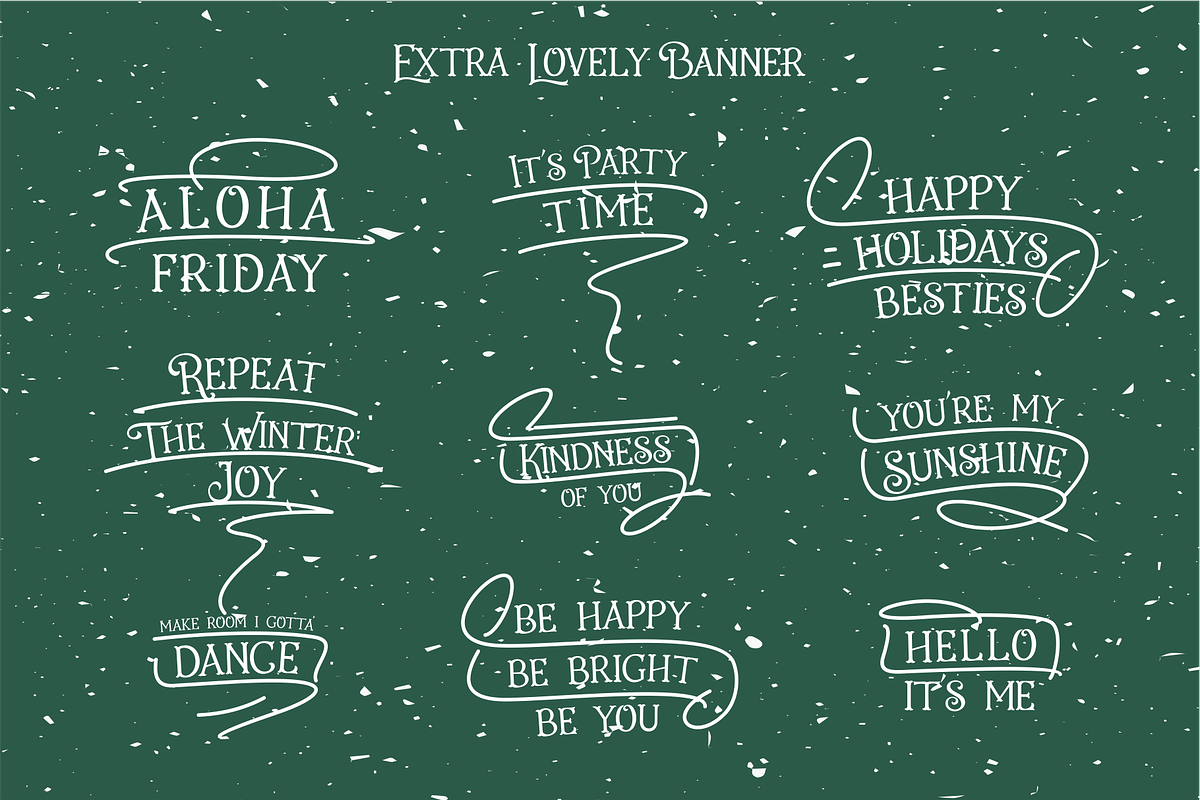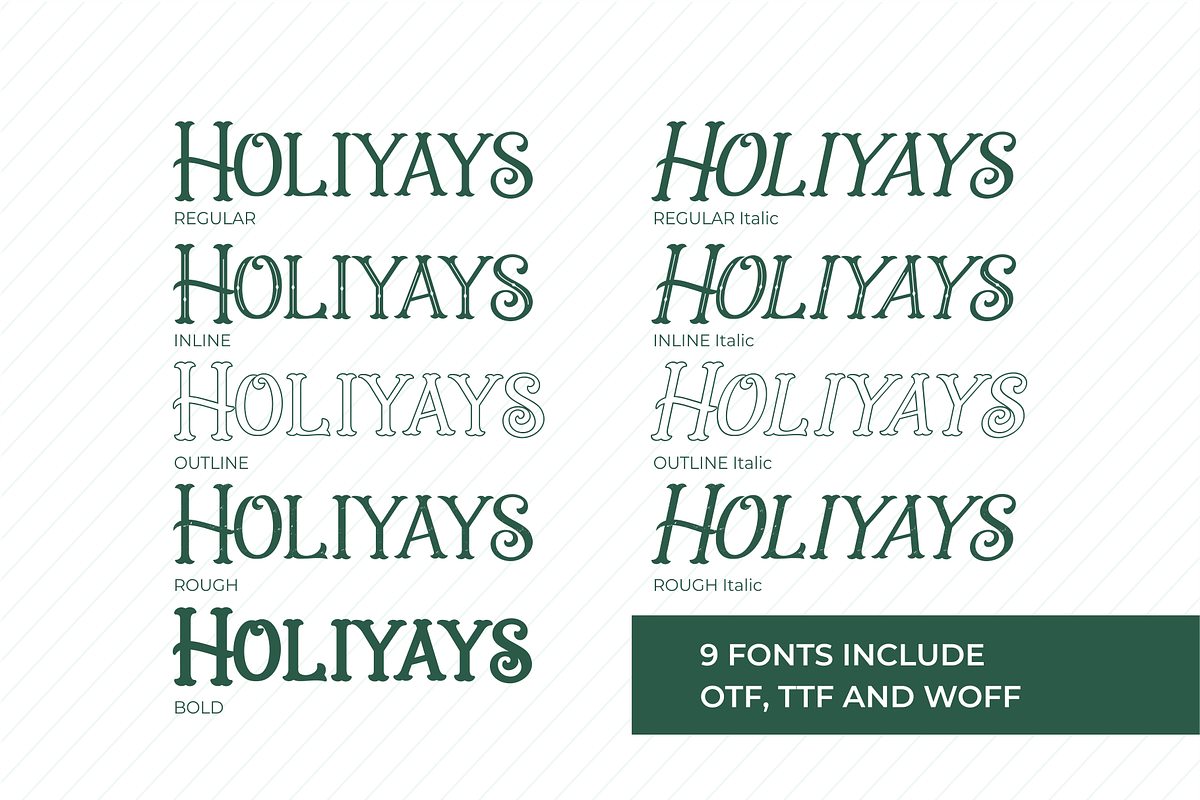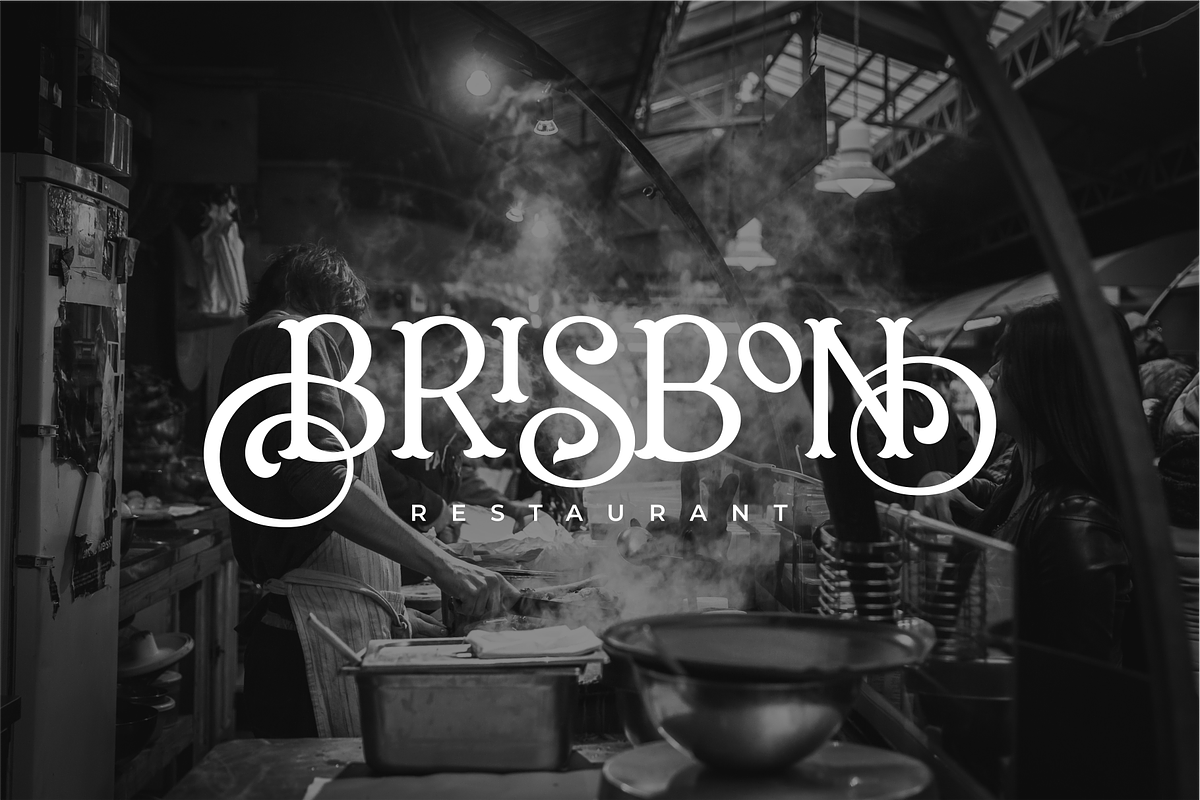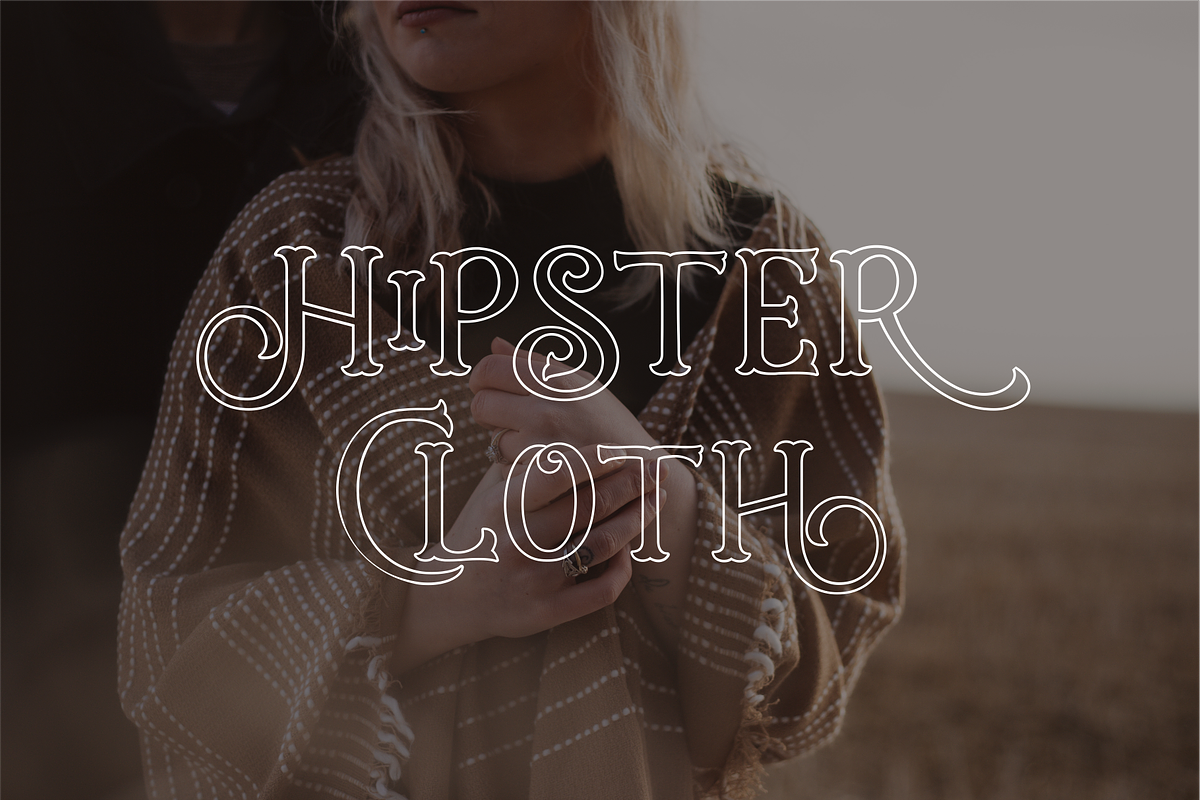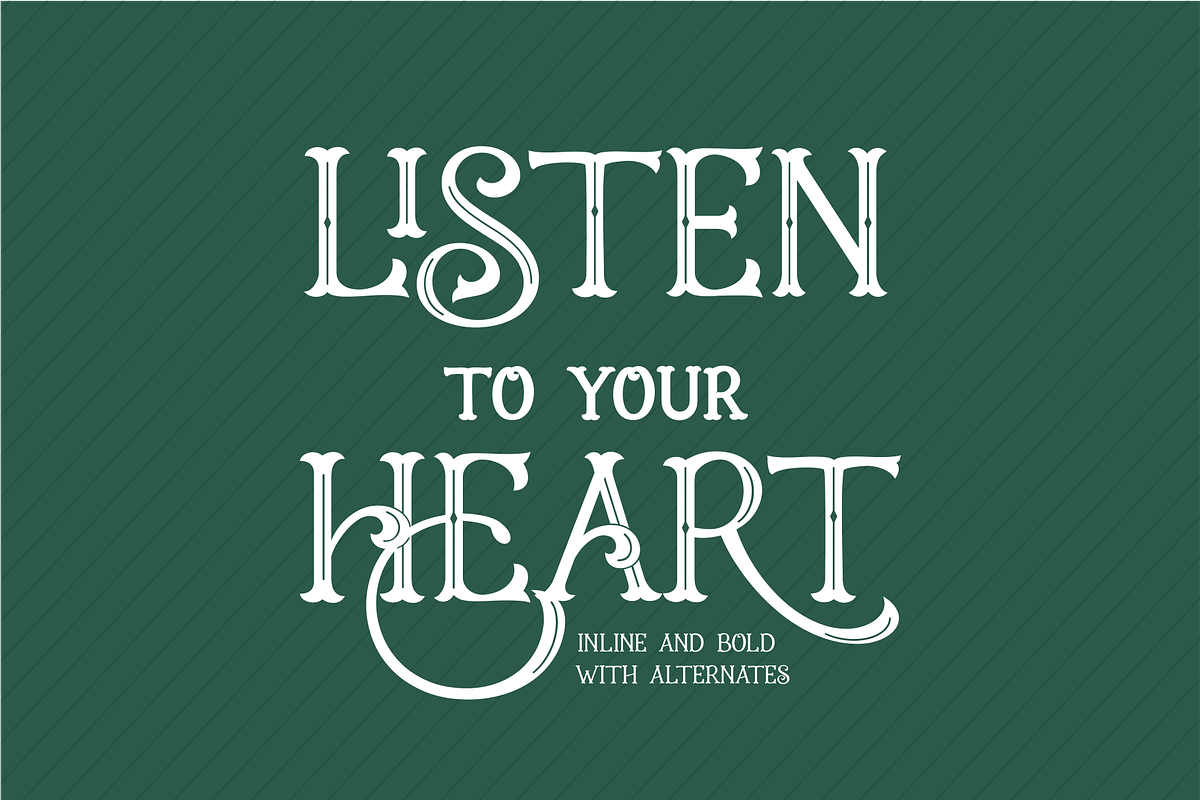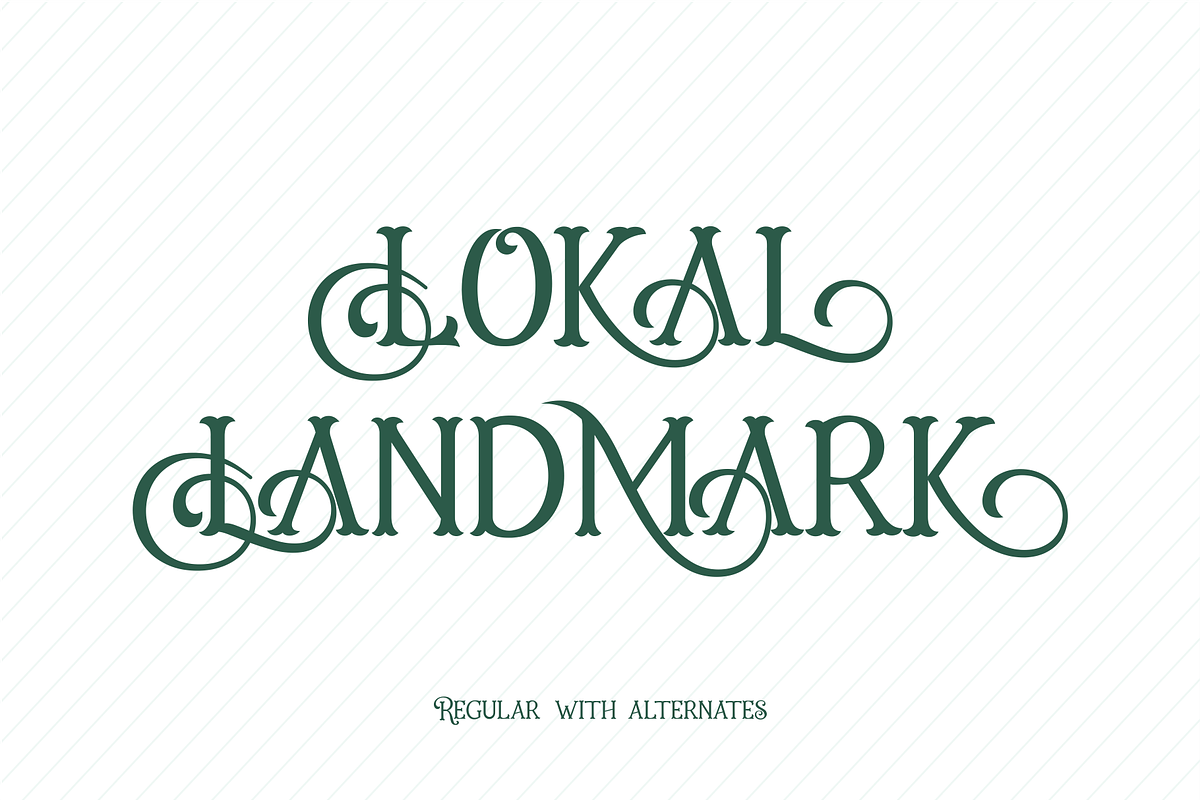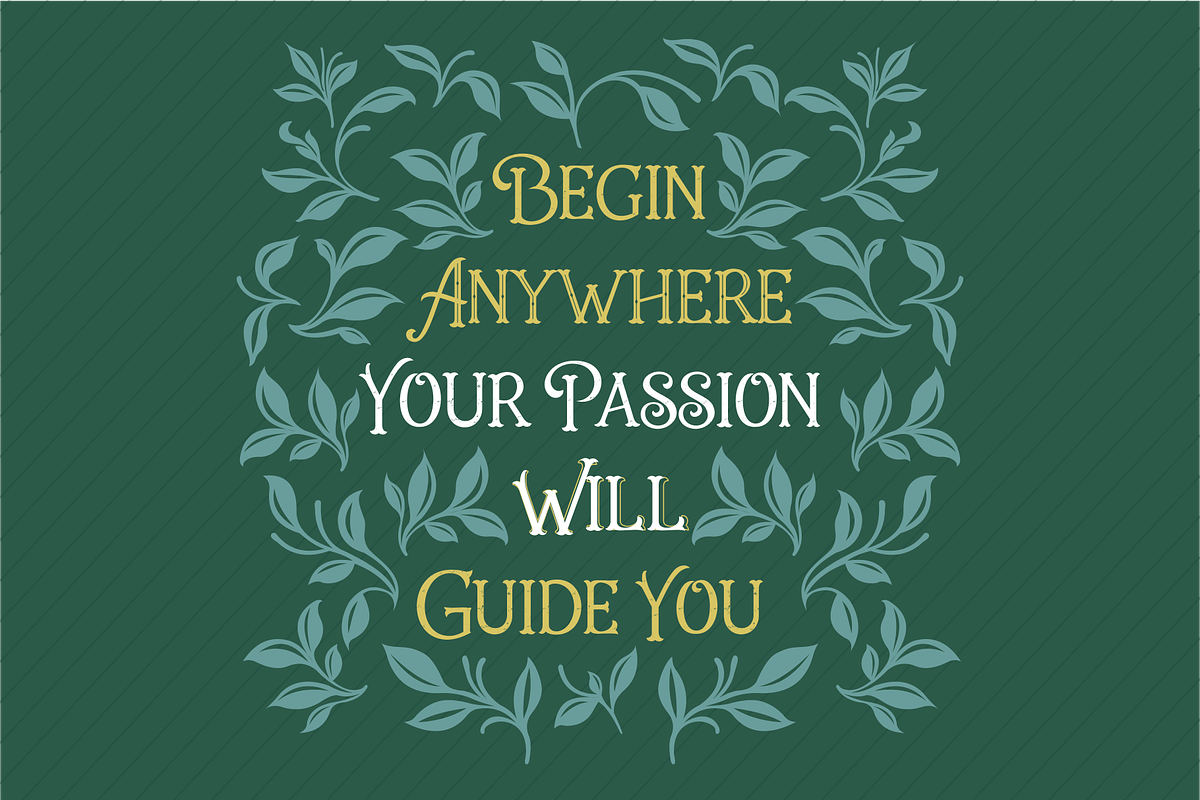
Holiday Present Fonts
Introducing the Holiday Present Font fun and amazing fonts that are inspired by the hopes of holiday. Good mood, good vibes and good alternates character are all contained in this font.
Perfect for greeting cards, wedding invitations, branding, custom art, logotype, printed quotes, badge, insignia, packaging, headline, poster, t-shirt/apparel, and label.